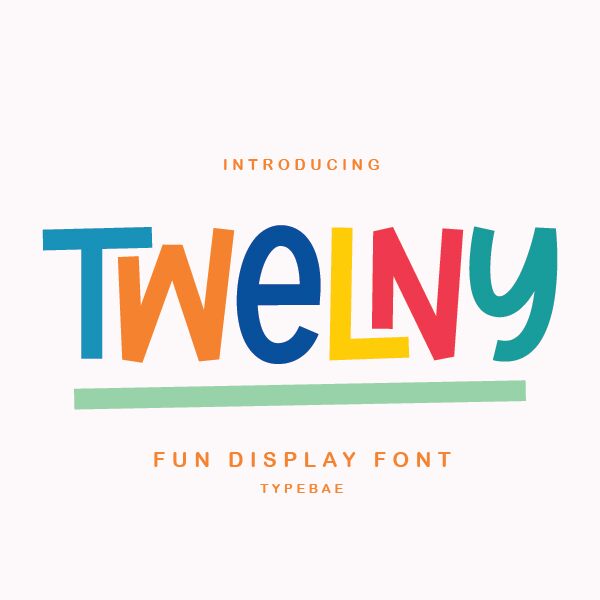
Twelny font is a free comic font inspired by gaming logos done by the talented Typebae Foundry. The font feels lively, casual, informal, and energetic with irregularly-spaced letters. Vibrant and colorful, it’s ideal for adding a sense of modernness or life to any text, especially given its readability aspect.
The font is ideal for various use cases including music album covers, books, comics, posters, movie packaging, t-shirt designs, branding, packaging, or more. Even if you don’t want to use the font as is, you can get creative and maybe colorize the different segments of the letters.